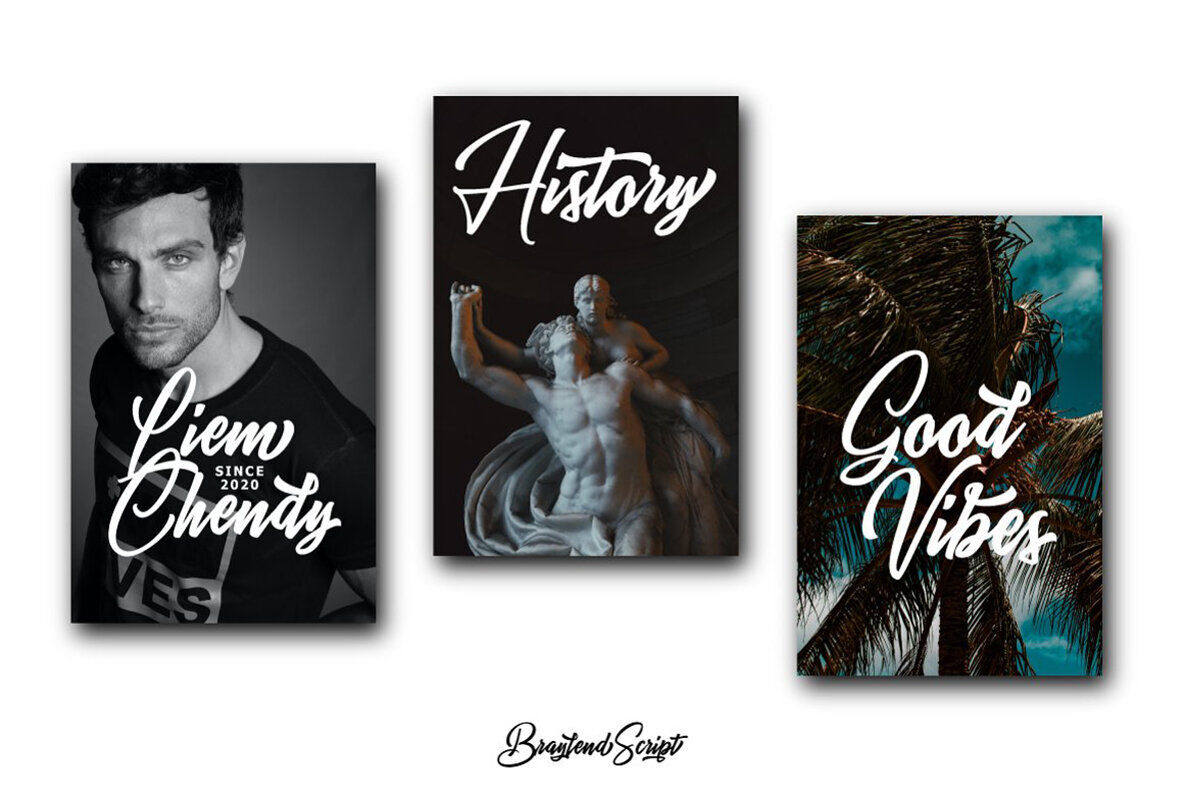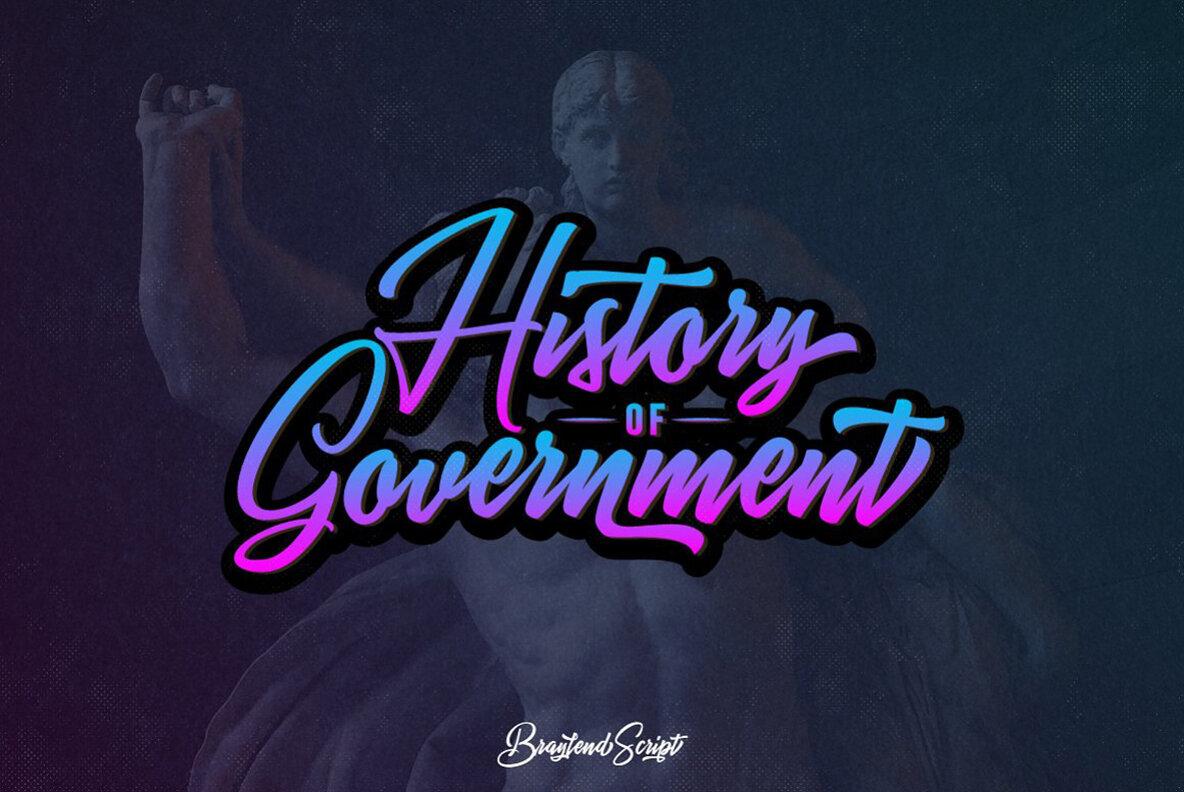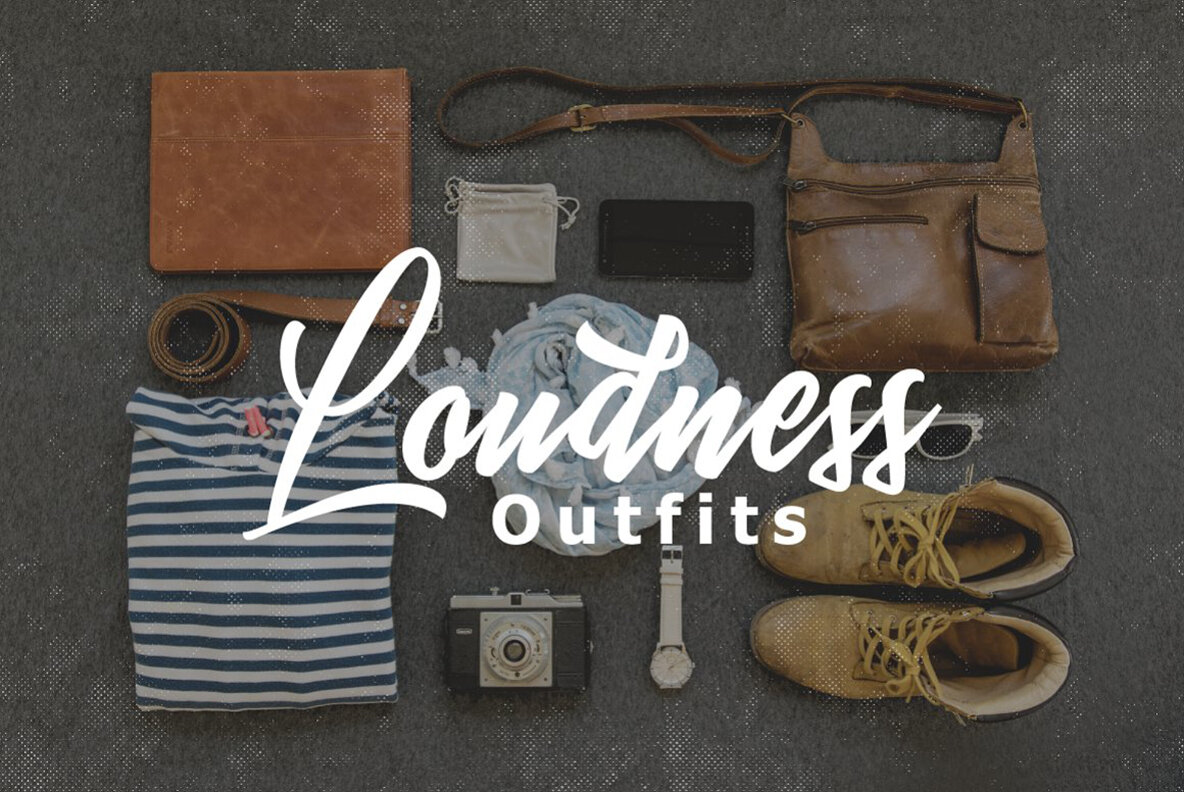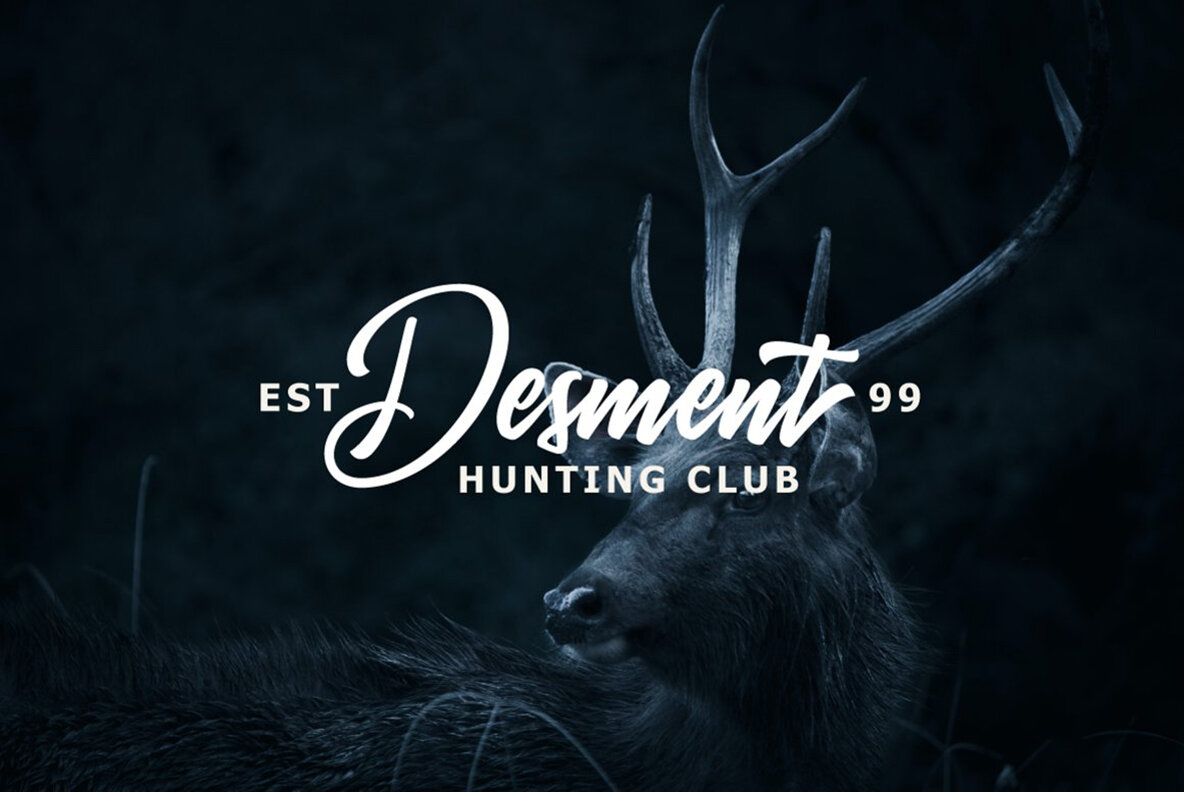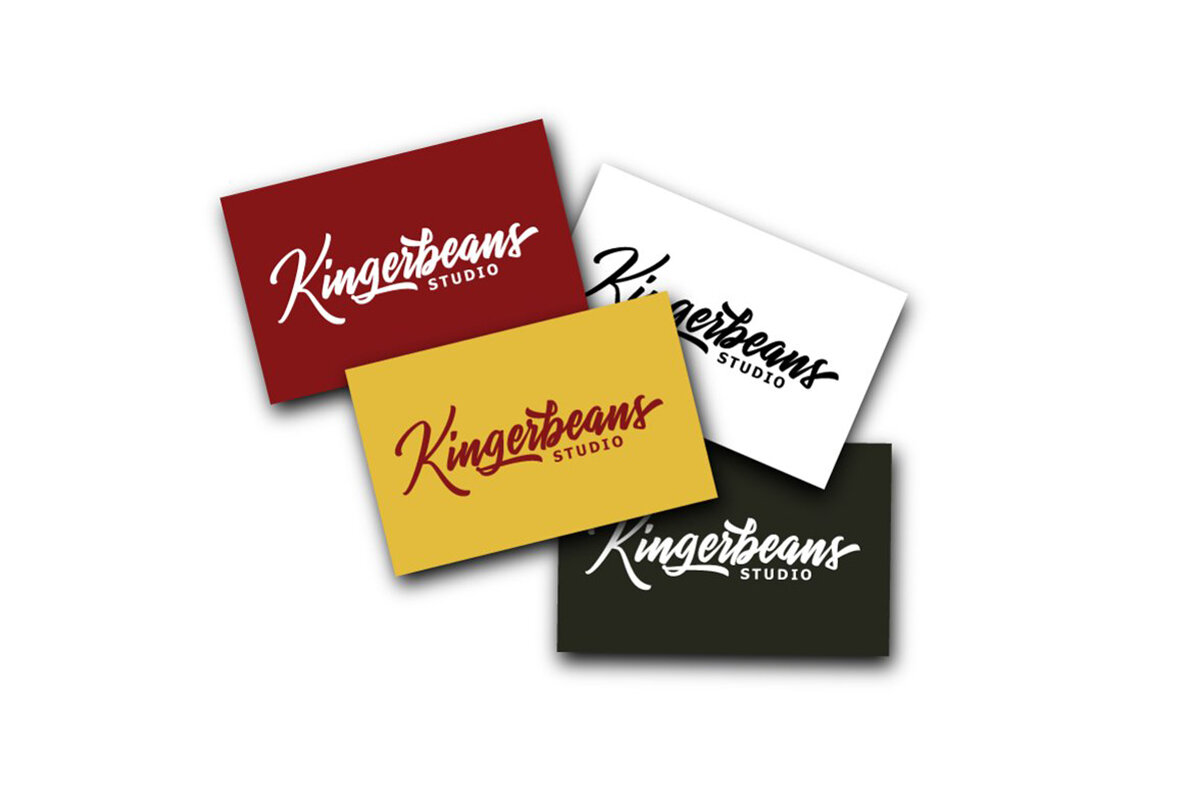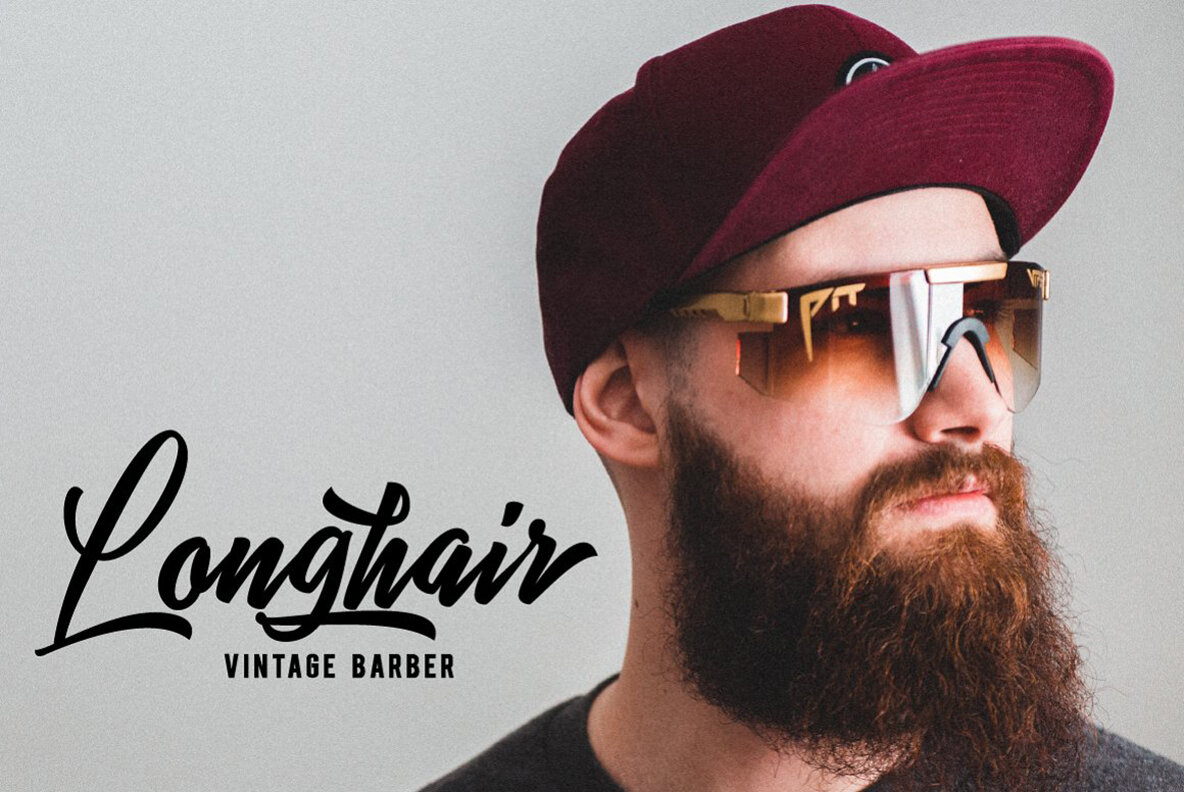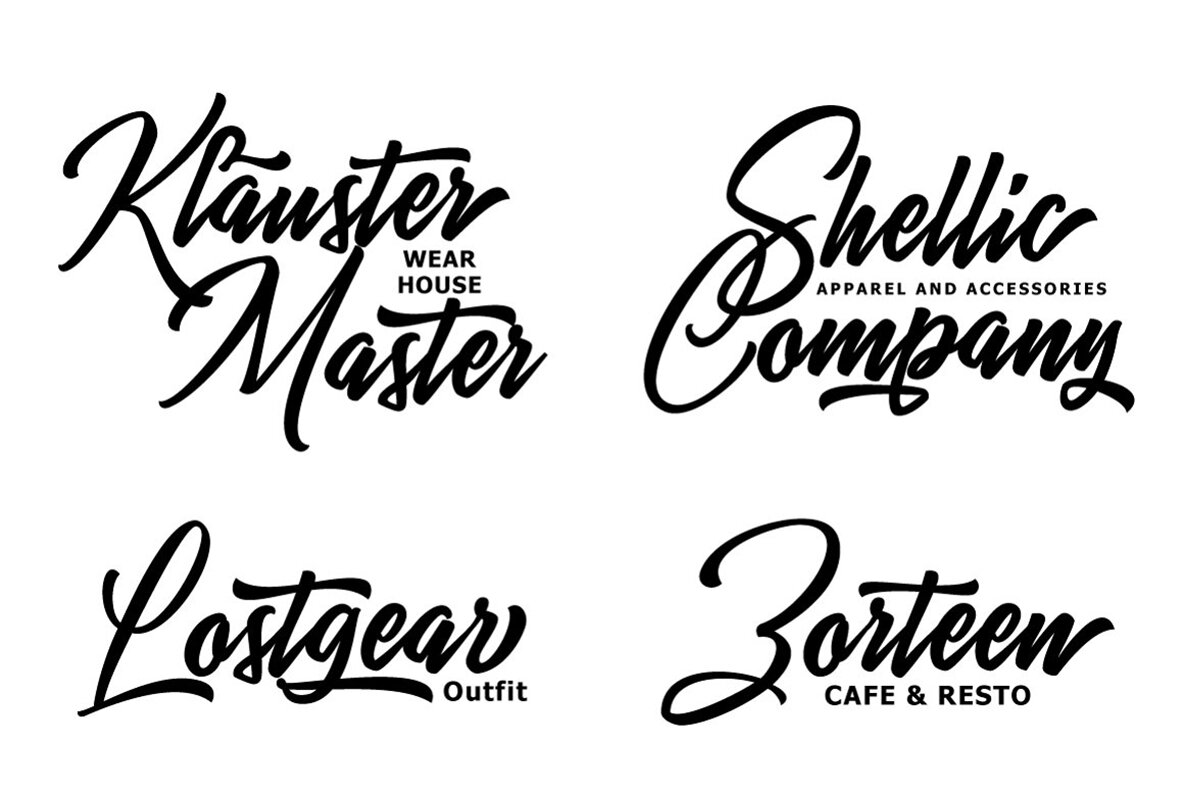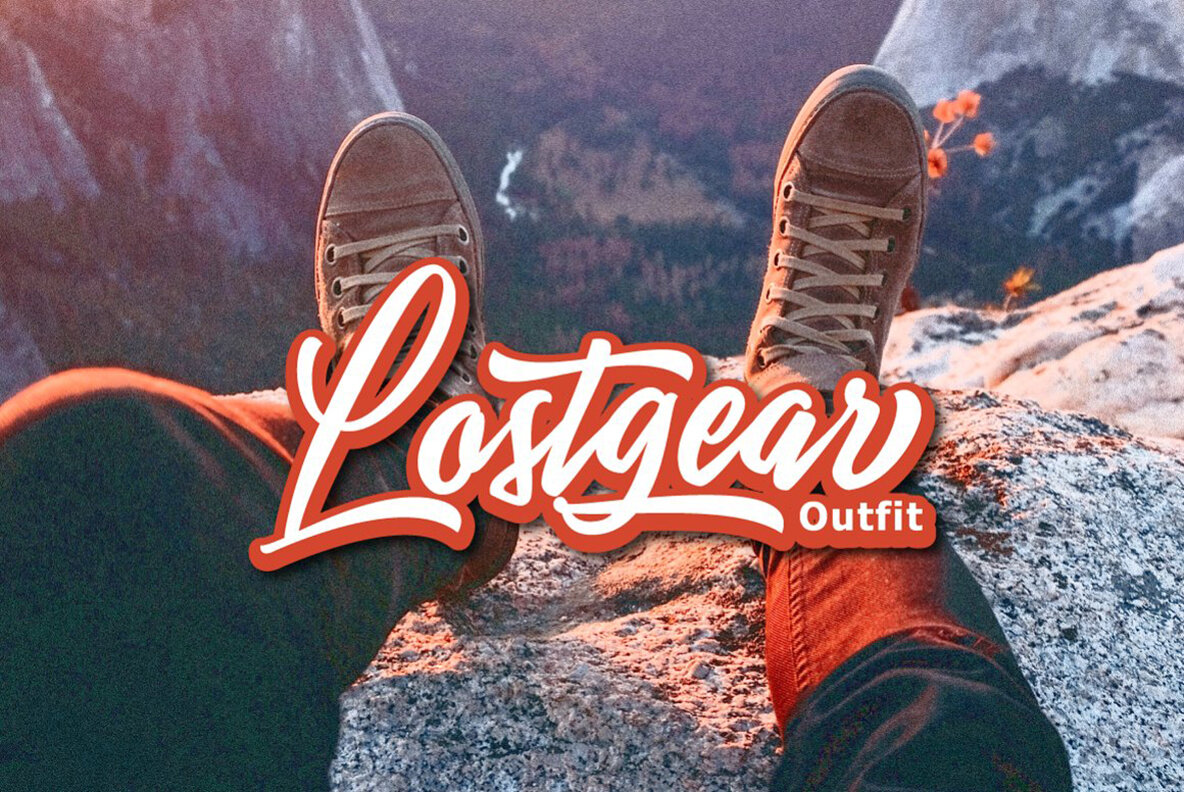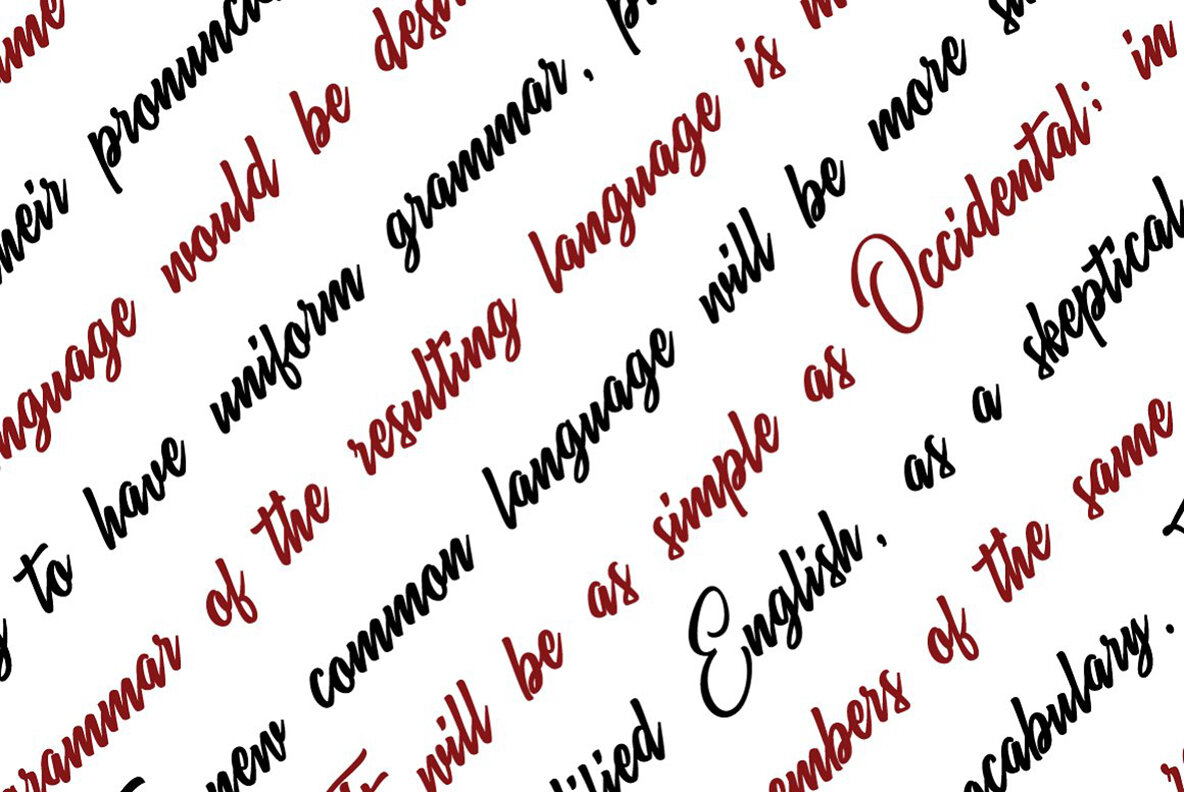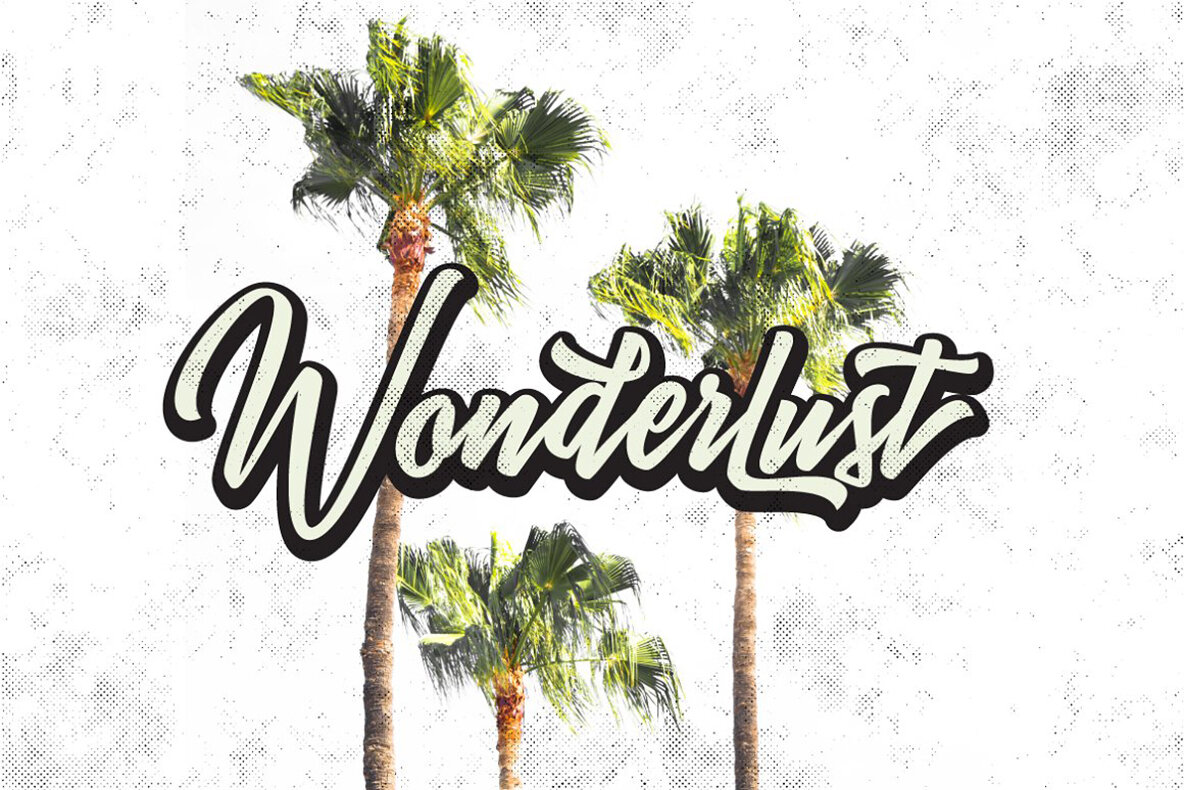
Braylend Script Font
Braylend Script
This font is a graceful script with a calligraphic style, perfect for elegant and sophisticated design projects. It is ideal for wedding invitations, formal stationery, luxury branding, and any other projects that require a touch of romance and class. The flowing, cursive characters add a stylish and classic feel.